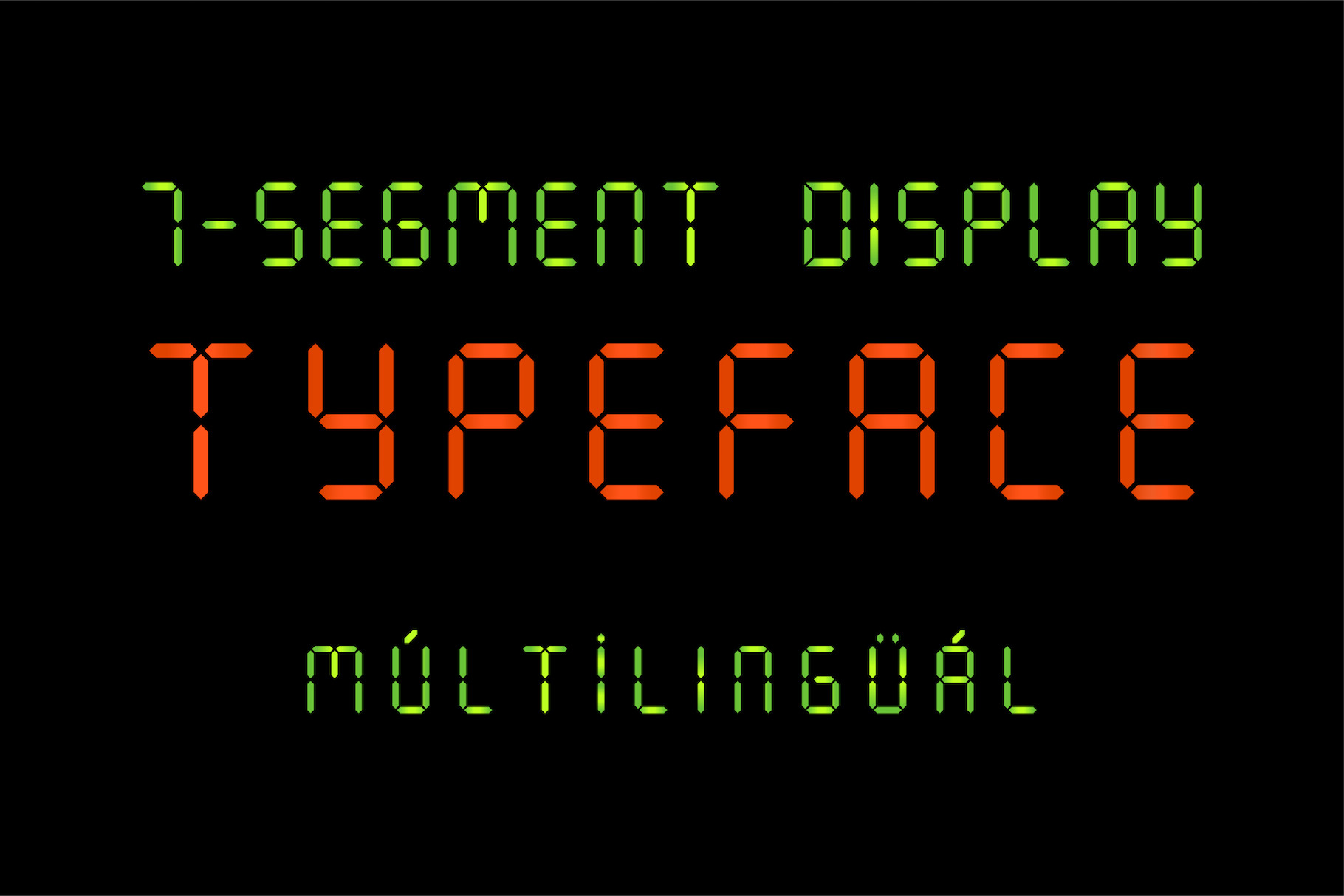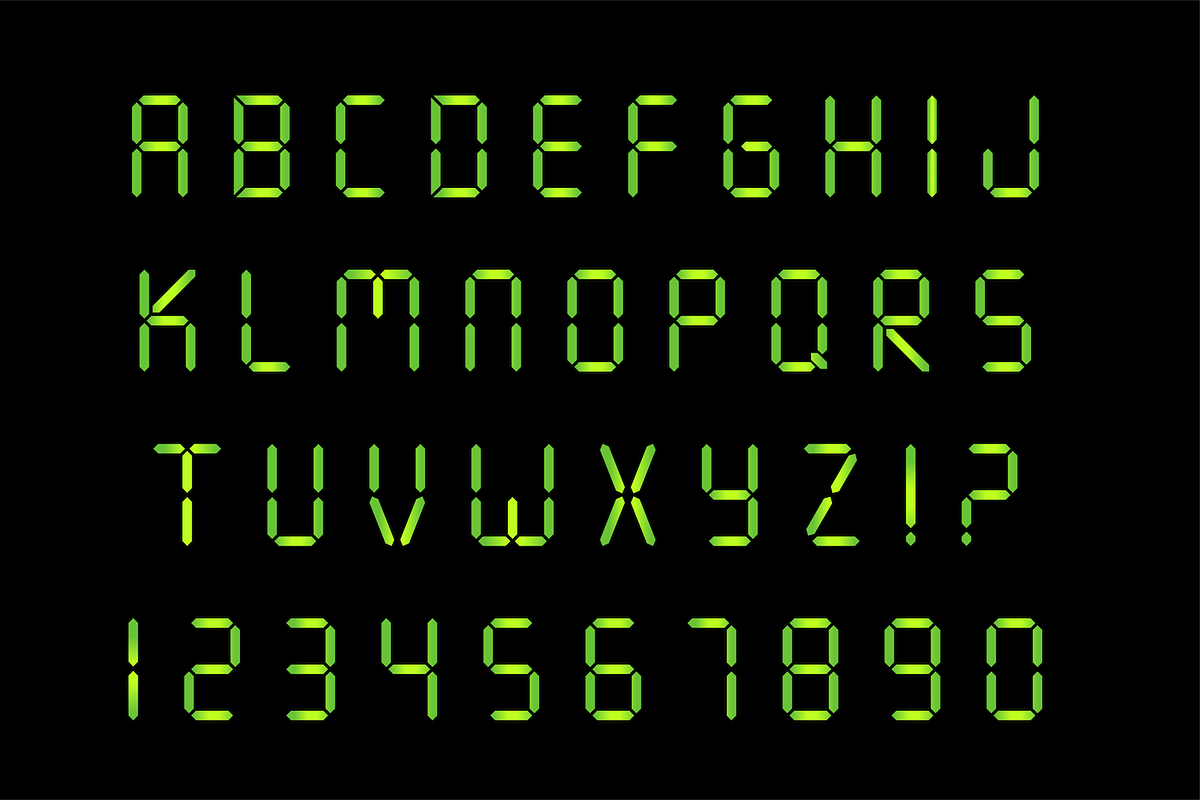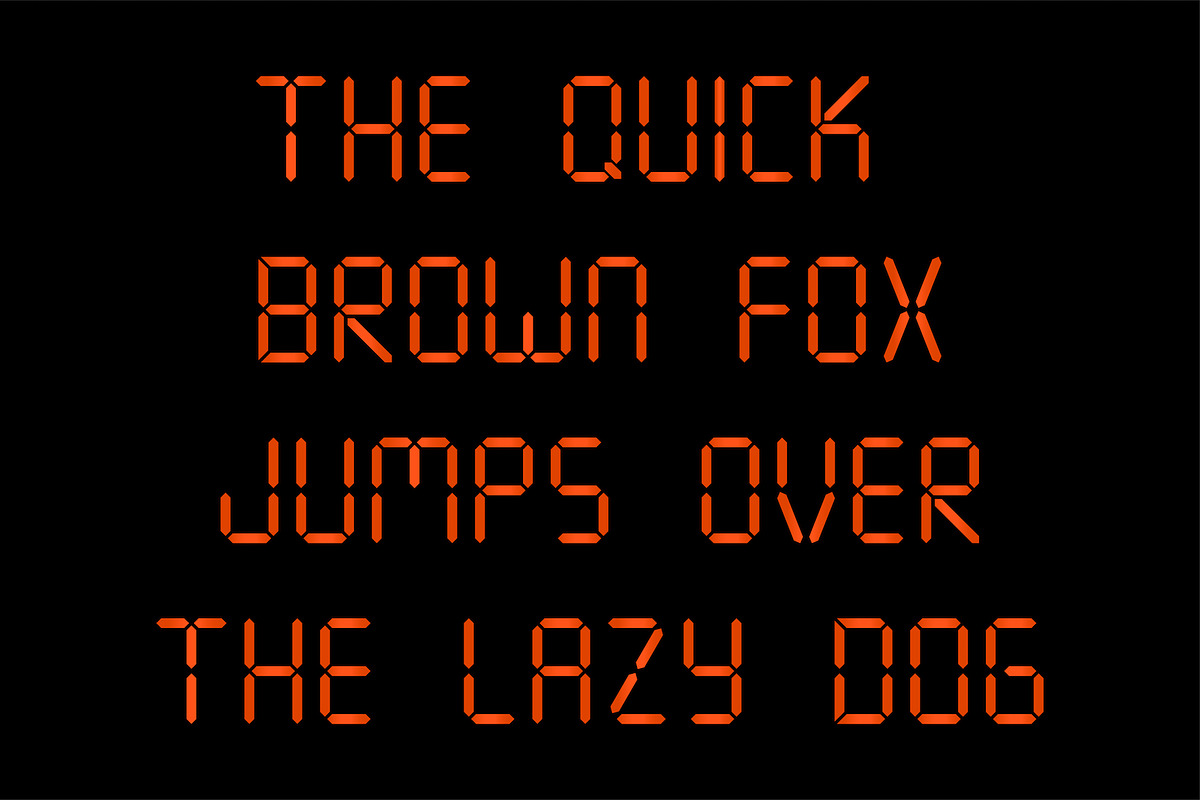
7 Segment Display Font
Multilingual 7 Segment Display Font
Capture the authentic look of vintage electronics with our Multilingual 7-Segment Display Typeface. Inspired by classic LCD screens, calculators, and retro digital alarm clocks, this highly legible font is perfect for any project requiring a nostalgic tech aesthetic. Whether you are designing futuristic UI elements, sports scoreboards, or digital dashboard mockups, this typeface brings electronic realism to your typography. Fully equipped with multilingual support, it ensures your digital display designs look flawless across different languages.